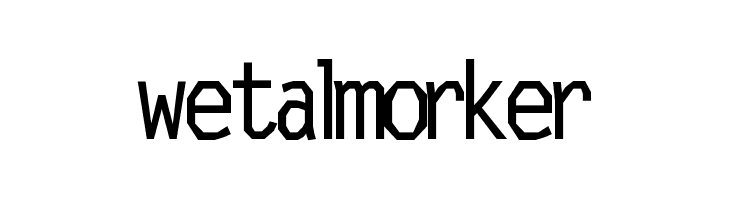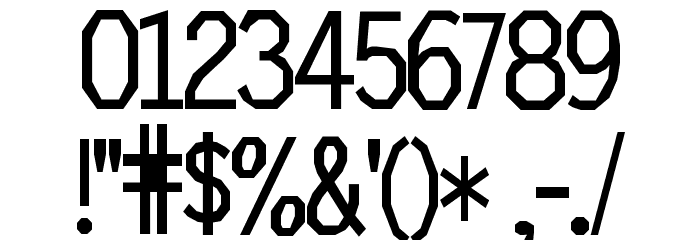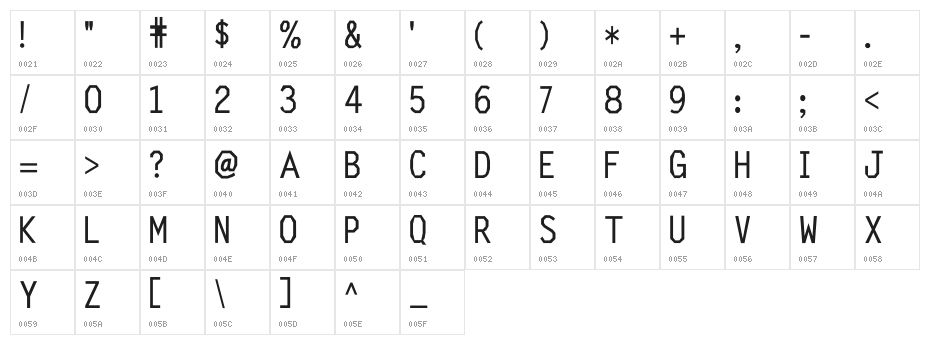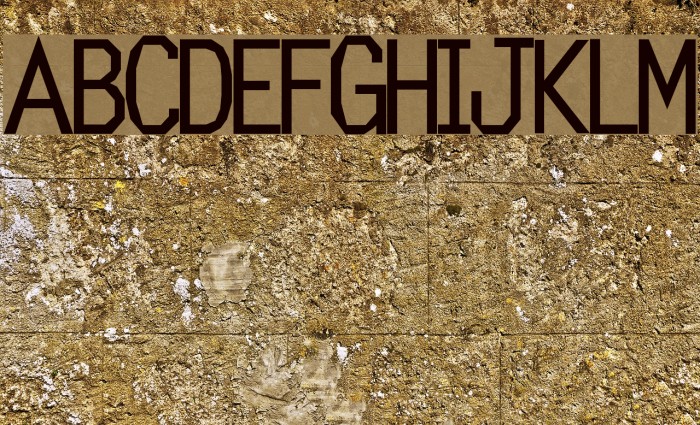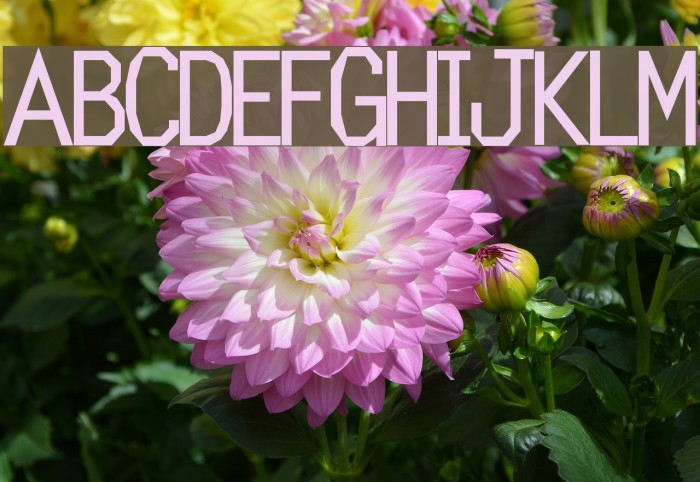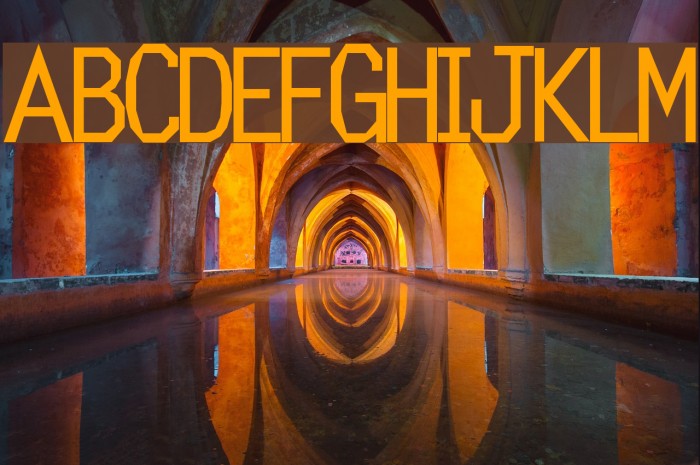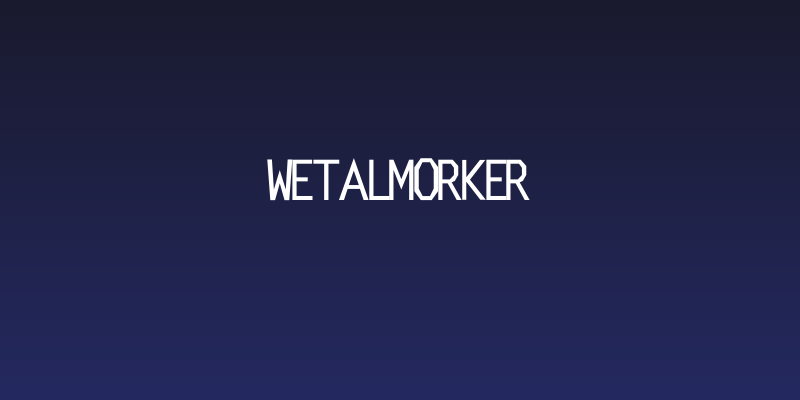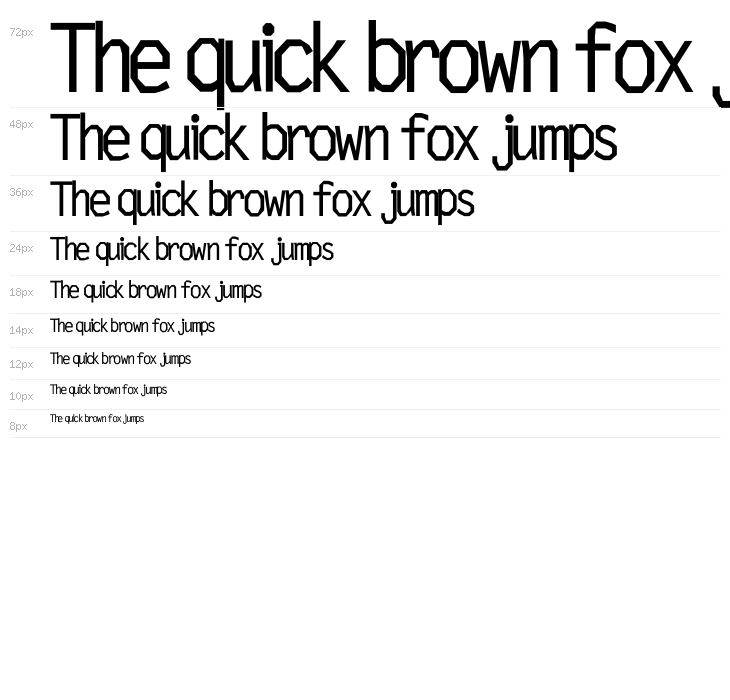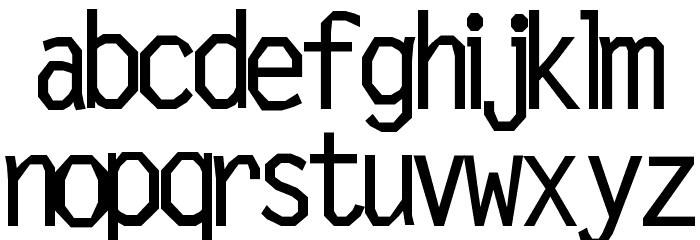
wetalmorker Font
wetalmorker Description
This font features a geometric and angular design, characterized by its sharp edges and clean lines. The uppercase and lowercase letters maintain a consistent height, creating a uniform appearance. The numerals are distinct and align well with the overall style, ensuring readability. Special characters are integrated seamlessly, maintaining the font's cohesive look. The design is modern and minimalistic, making it suitable for a variety of applications where clarity and precision are essential.